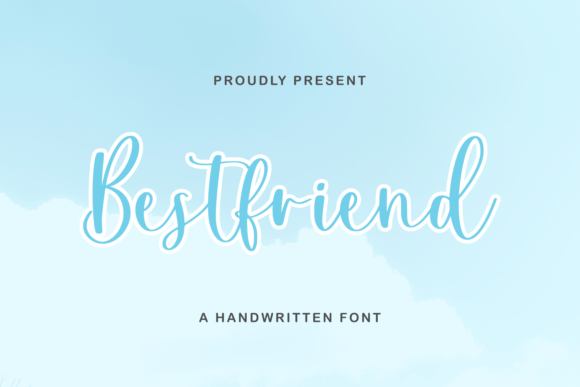
In a world where words dance off the page, let Bestfriend Font guide you on an enchanting journey of heartfelt expression. This script font, crafted with the utmost care by kammaqsum, is not just a collection of letters; it's an ode to romance, an invitation to let your emotions flow freely onto the digital canvas.
Bestfriend Font isn't merely a font; it's a conduit for your innermost feelings, a tool that transforms your words into heartfelt whispers, passionate pleas, and tender confessions. Its elegant curves and graceful flourishes evoke a sense of nostalgia, reminiscent of love letters penned under moonlit skies.
With Bestfriend Font, your words will carry an air of authenticity, a raw and unadulterated beauty that resonates with your audience. Its versatility knows no bounds, adapting effortlessly to logos, labels, branding, invitations, websites, quotes, and more. Whether you're a seasoned designer or just starting your creative journey, Bestfriend Font will elevate your designs, making them stand out from the crowd with its captivating charm.
Unleash the power of Bestfriend Font, and let your words ignite the flames of passion, spark the embers of romance, and leave an enduring impression on all who encounter your creations. This font is your secret weapon, your trusted companion on the path to creating designs that speak to the heart.